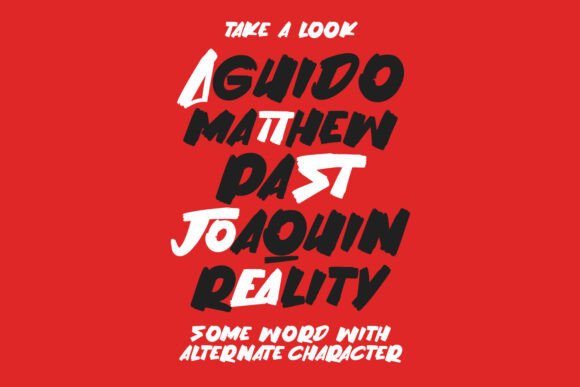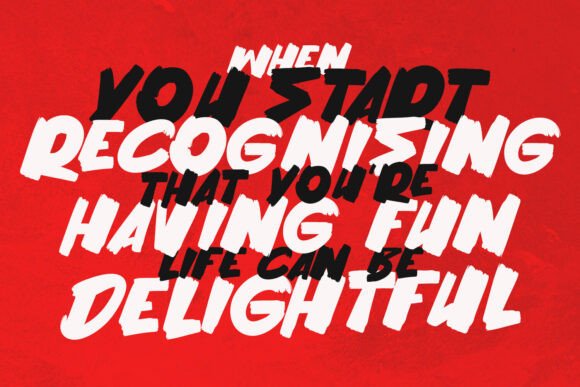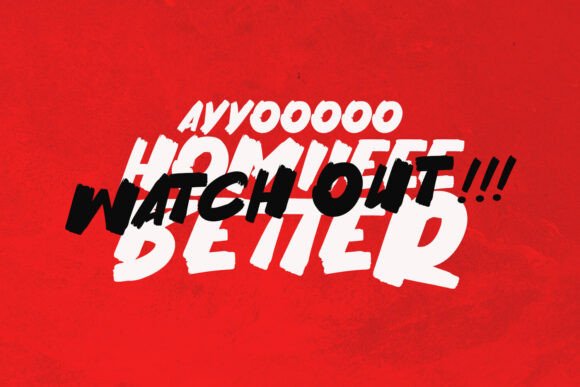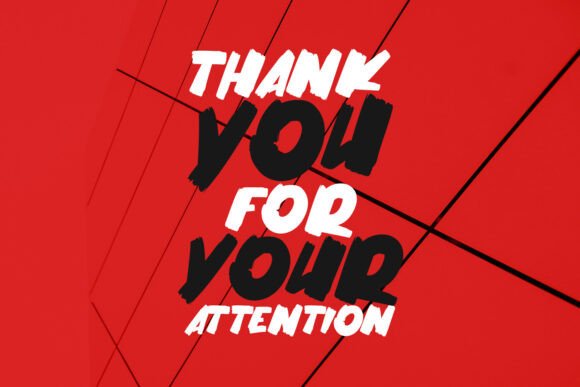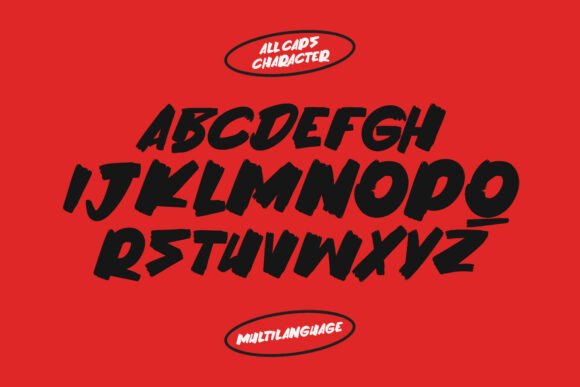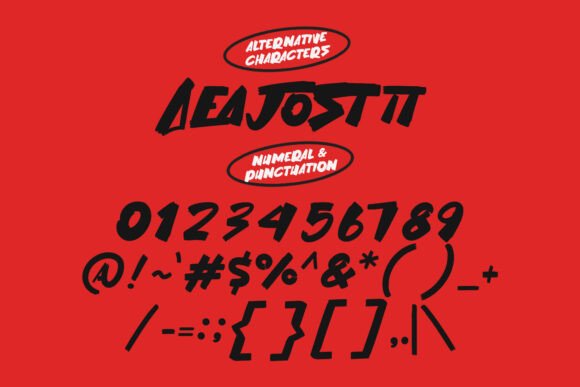
Introduction to Easto Coma Font
Easto Coma is a powerful brush display font packed with energy and edge.
Its raw, hand-painted style gives your designs a punchy, rebellious look thatโs perfect for posters, album covers, streetwear, sports branding, and bold headlines With rough textures and bold strokes, it screams personality and impact.